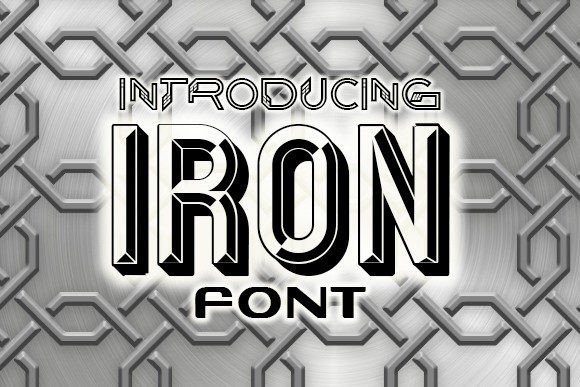
In a world saturated with monotonous fonts, allow us to introduce Iron Font – a revolutionary display typeface that shatters the boundaries of creativity and ignites a visual feast for your design endeavors. Crafted with meticulous attention to detail by the visionary vladimirnikolic, Iron Font emerges as an awe-inspiring 3D masterpiece, ready to elevate your projects to unprecedented heights.
Immerse yourself in the captivating allure of Iron Font, a font family that defies convention and captivates audiences with its bold and commanding presence. This extraordinary creation is not merely a font; it's a testament to artistic brilliance, designed to leave an indelible mark on your designs.
With Iron Font, prepare to conquer the world of posters and flyers, transforming them into canvases of visual symphony. Its striking 3D structure adds depth and dimension, drawing the eyes of your audience like a magnet. Unleash your creativity and let Iron Font guide you towards extraordinary design masterpieces.
But Iron Font's prowess extends far beyond the realm of posters and flyers. Its versatility shines through as it effortlessly adapts to a myriad of design projects, from branding and marketing materials to social media graphics and website designs. Its innate ability to command attention and create a lasting impression makes it the perfect choice for designers seeking to make a statement.
In a sea of ordinary fonts, Iron Font stands tall as a beacon of originality, empowering you to craft designs that resonate with your audience on a profound level. Its captivating 3D structure captivates attention, while its inherent flexibility allows it to adapt seamlessly to any design concept.
Elevate your designs to the next level with Iron Font, the ultimate font for those who dare to dream big and leave a lasting impression. Let your creativity soar and witness the transformative power of this 3D masterpiece as it breathes life into your projects. Embrace the Iron Font revolution and unlock a world of boundless possibilities.